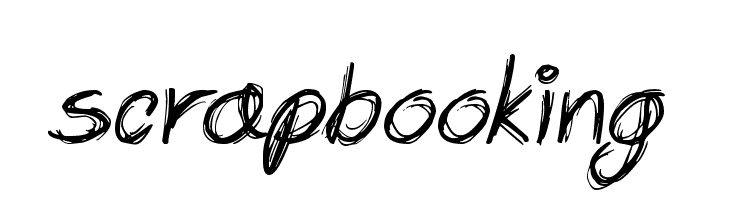
A playful, hand-drawn font with a sketch-like texture and dynamic strokes.
A bold blackletter font with a blend of traditional and modern elements.
A playful, hand-drawn font with a whimsical and childlike charm.
A bold, geometric font with strong, angular lines and a modern aesthetic.
A rustic, hand-drawn font with bold, playful characters and uneven strokes.
A bold, angular font with a dynamic and geometric design.
A futuristic, angular font with a sleek, technical design.
A playful, bold font with rounded, hand-drawn characters.
A bold, futuristic font with a beveled, three-dimensional design.
A playful, handwritten font with an informal and organic style.